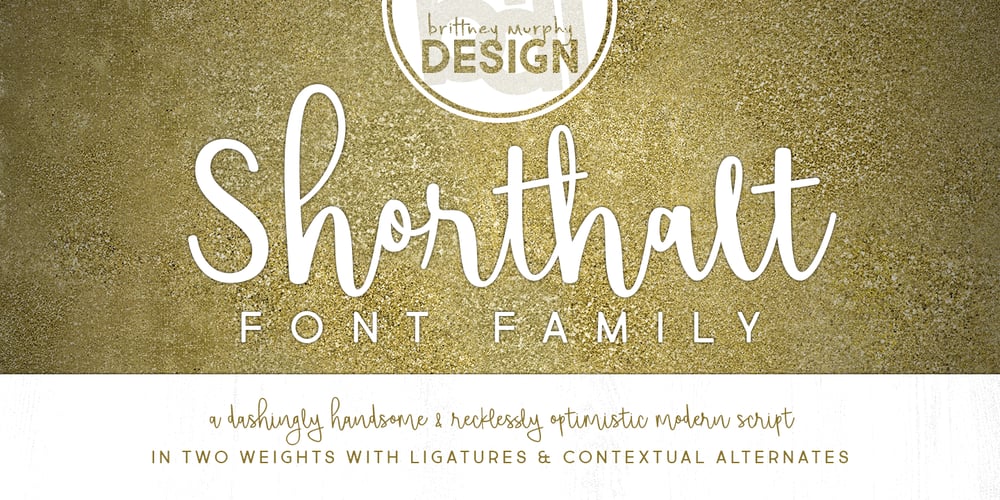
Shorthalt Font Family was designed by Brittney Murphy and published by Brittney Murphy Design. Shorthalt contains 2 styles and family package options. Shorthalt is a dashingly handsome upright script- all dressed up, but not too stuffy, with lots of ligatures and contextual alternates. Shorthalt works great for headlines or bylines paired with a nice simple sans or serif.